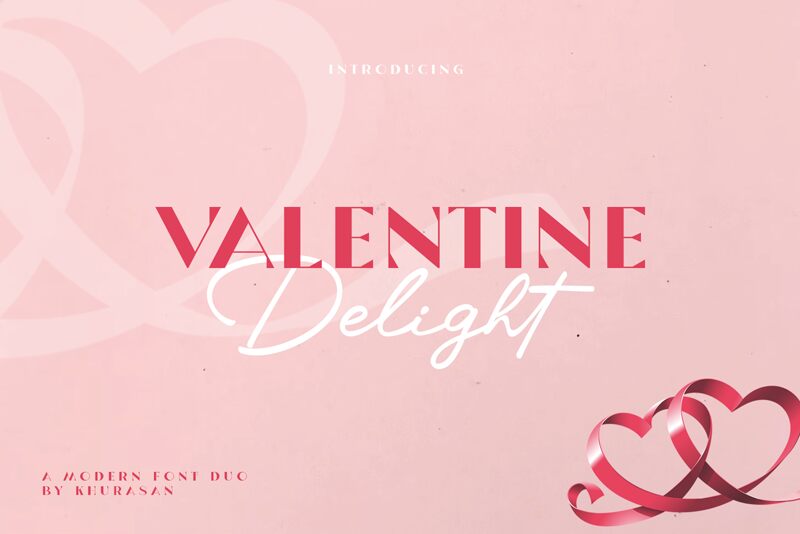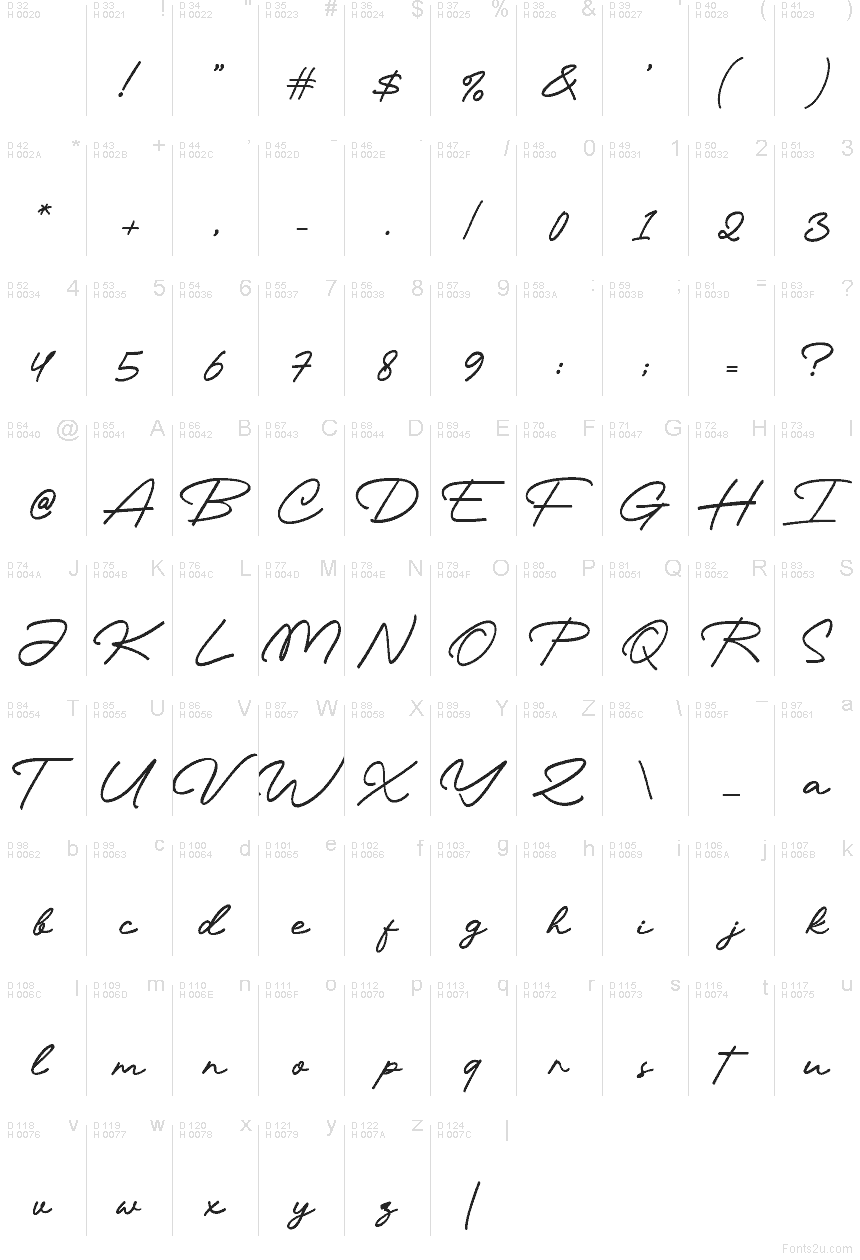
Valentine Delight Script
Valentine Delight Script font by Khurasan is a free handwritten typeface that captures the feel of a quick, confident love note written in smooth black ink. Its flowing loops and gentle slant create an easy, romantic rhythm—elegant, but not fussy—so your words feel personal instead of overly formal. Light, airy strokes give it a soft, intimate touch that works beautifully at larger sizes where the curves can really breathe.
Using Valentine Delight Script, you can instantly add warmth to wedding invitations, Valentine’s cards, engagement announcements, love-themed social posts, product packaging, and boutique logos. This free font shines on anything that needs a handwritten, affectionate voice without slipping into cliché. Pair it with a clean sans serif for body text and keep the script for short lines or headings to let its delicate character stay clear and legible.